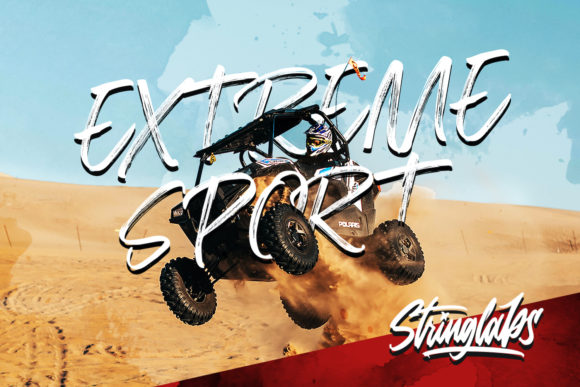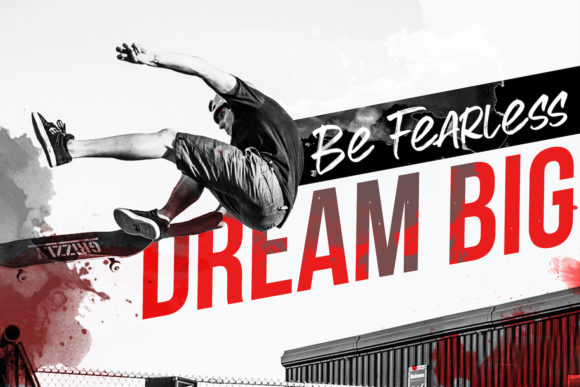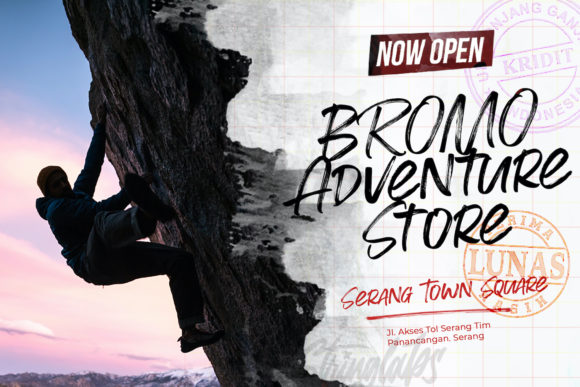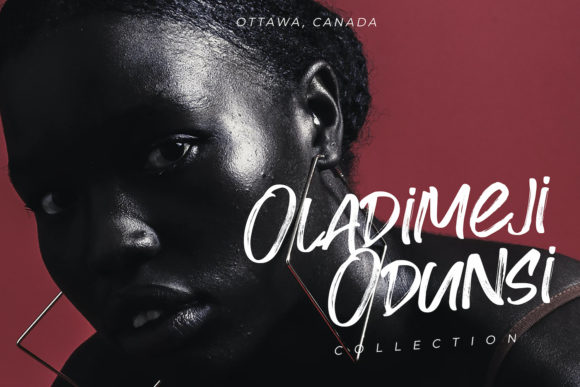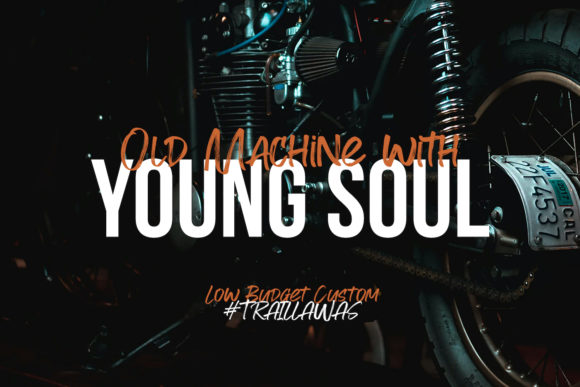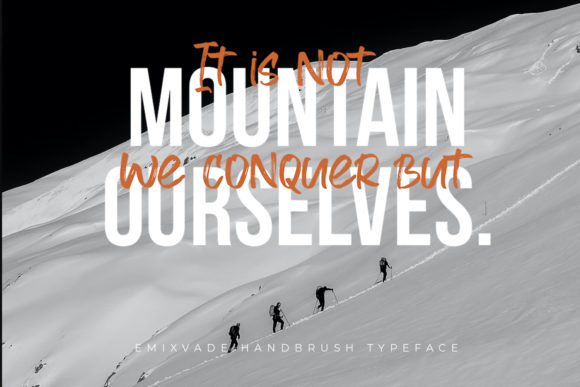
Introduction to Emixvade Font
Have you ever found yourself staring at a blank page, searching for the perfect font to bring your creative project to life? The right font can be the difference between a design that’s merely good and one that’s truly exceptional. For designers, finding that elusive combination of style and functionality can be a challenge, but it’s a challenge that’s about to get a whole lot easier with the introduction of the Emixvade Font.
This modern handbrushed font is more than just a pretty face – it’s a design resource that’s packed with authentic charm and a personal twist. With its unique blend of style and sophistication, Emixvade Font is the perfect addition to any creative project, from branding and advertising to web design and more.
- High-quality, professional font ideal for creative projects and design resources.
- Features a clean, modern design with a range of styles and weights, making it suitable for a variety of design applications.
- Unique characteristic: Emixvade Font includes a unique set of ligatures and swashes, adding a touch of elegance to any design project.
Honest Review: Emixvade Font
Here are some of the things that work well with the Emixvade Font:
- ✨ Unique and modern design aesthetic
- ✨ High-quality typography that’s perfect for titles and headings
- ✨ Easy to read and understand, even at small font sizes
- ⚠️ Limited character set, which may not be suitable for lengthy texts
- ⚠️ Not ideal for body text, as it can be a bit too bold and overpowering
Overall, I’m impressed with the Emixvade Font as a design resource. It’s perfect for adding a touch of modernity to a creative project, and the free download makes it an attractive option for designers on a budget. Just be mindful of its limitations, and use it accordingly.
The Emixvade Font is perfect for a variety of design projects, including logos, business cards, and presentations. Its high quality and transparent background make it a great choice for designers looking for a reliable and versatile font.